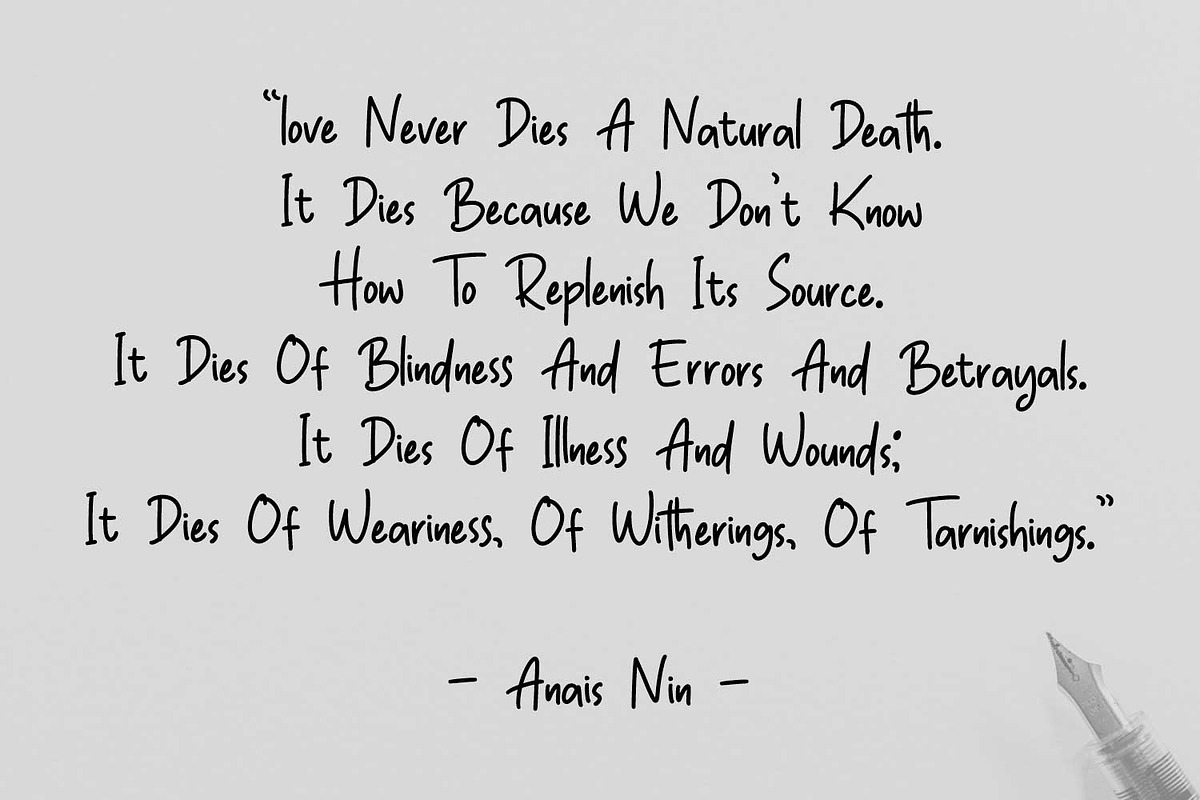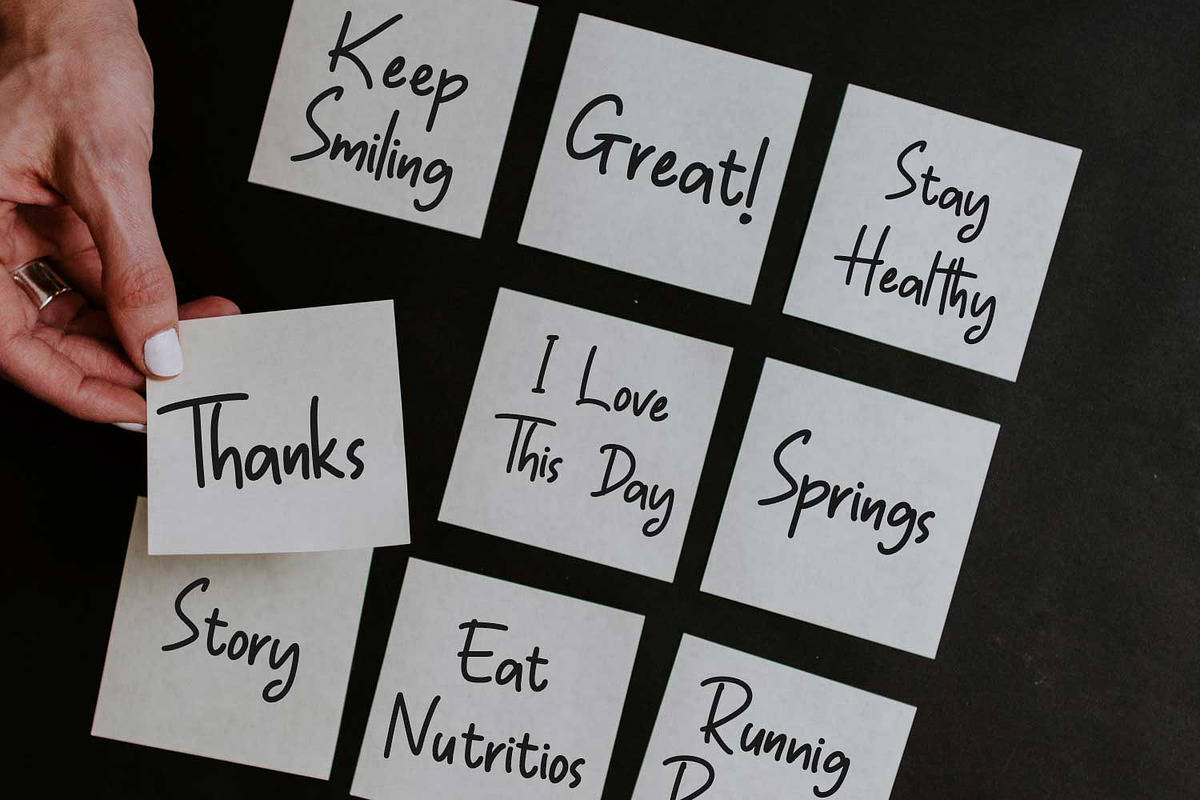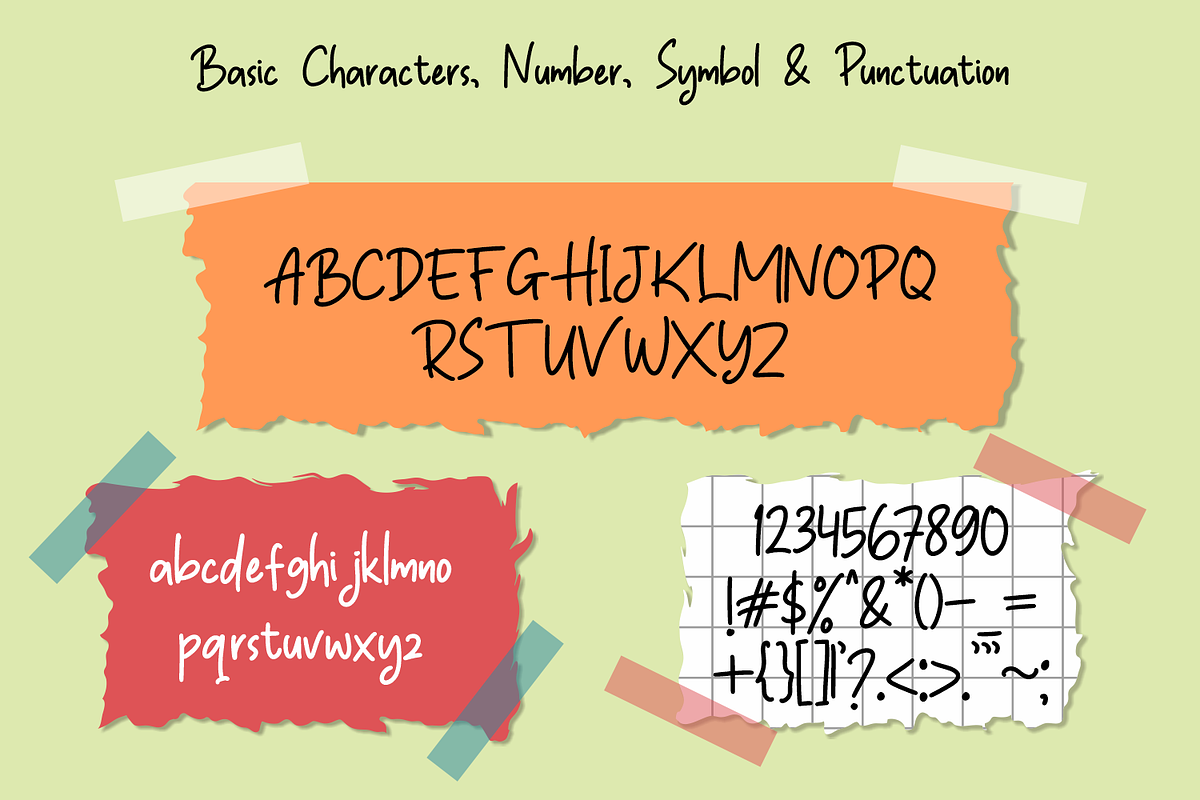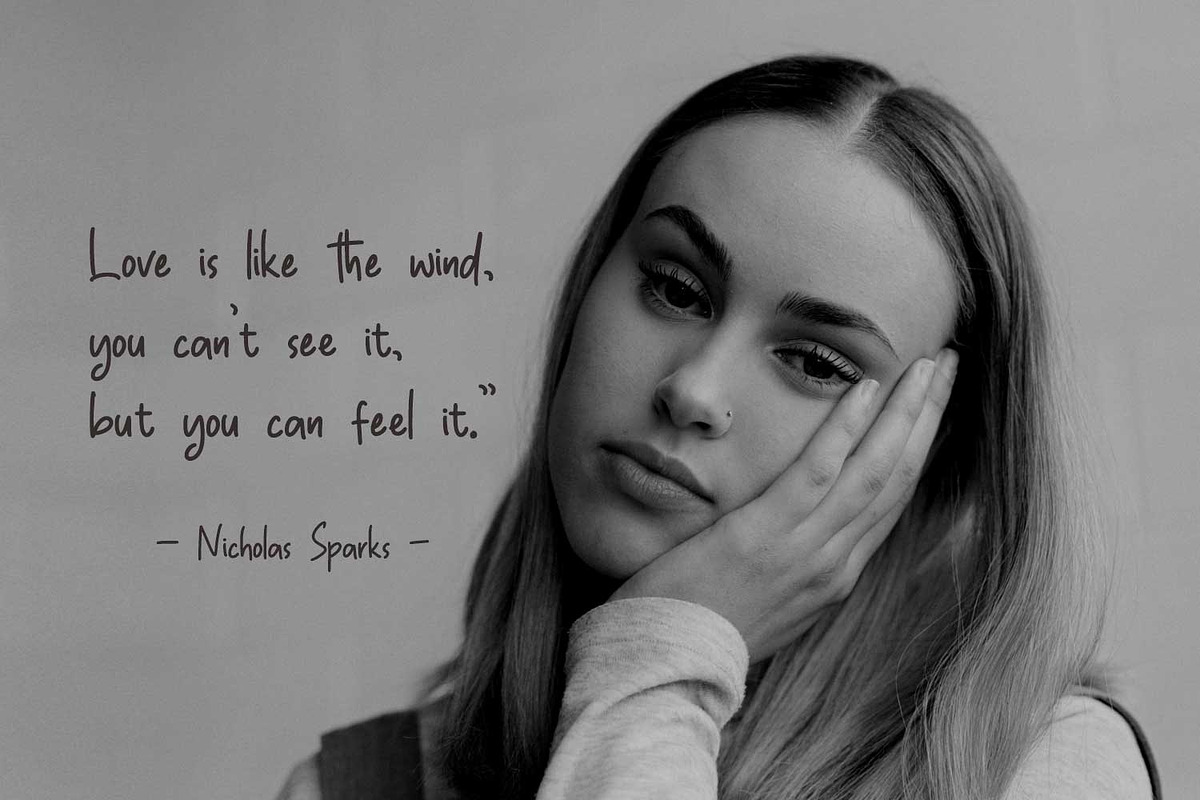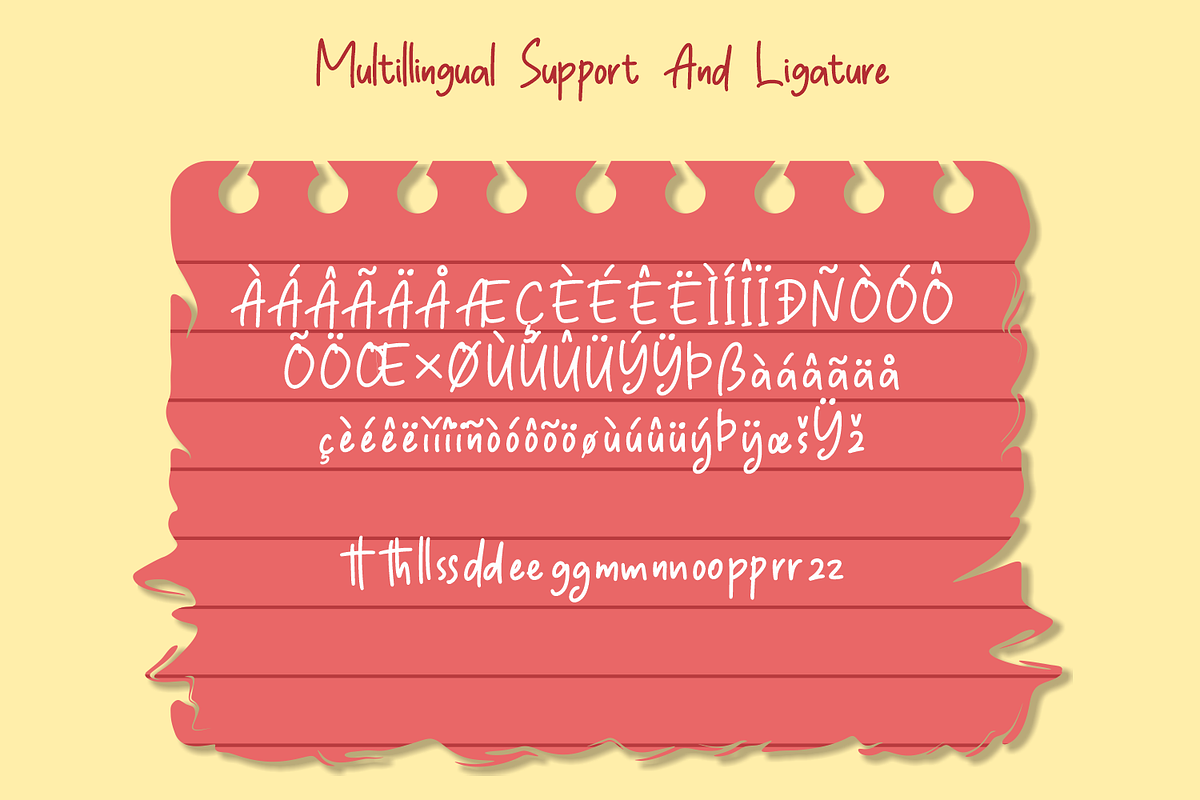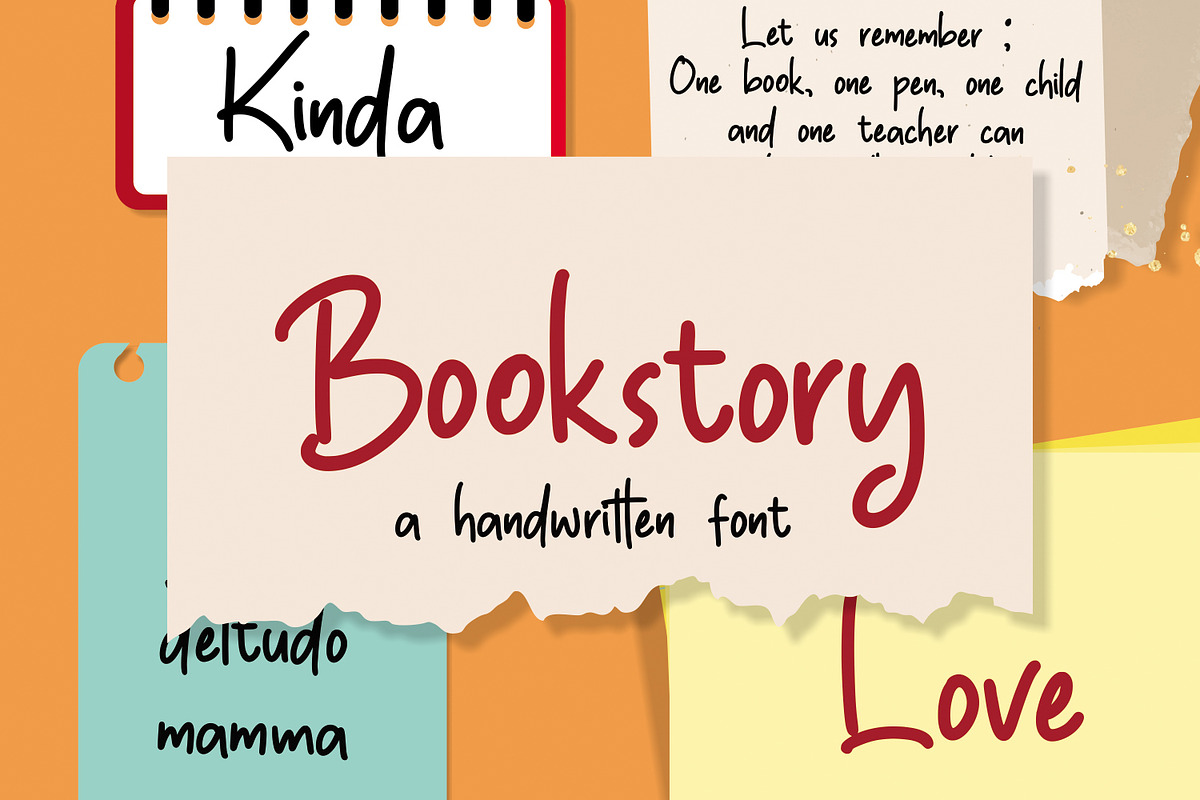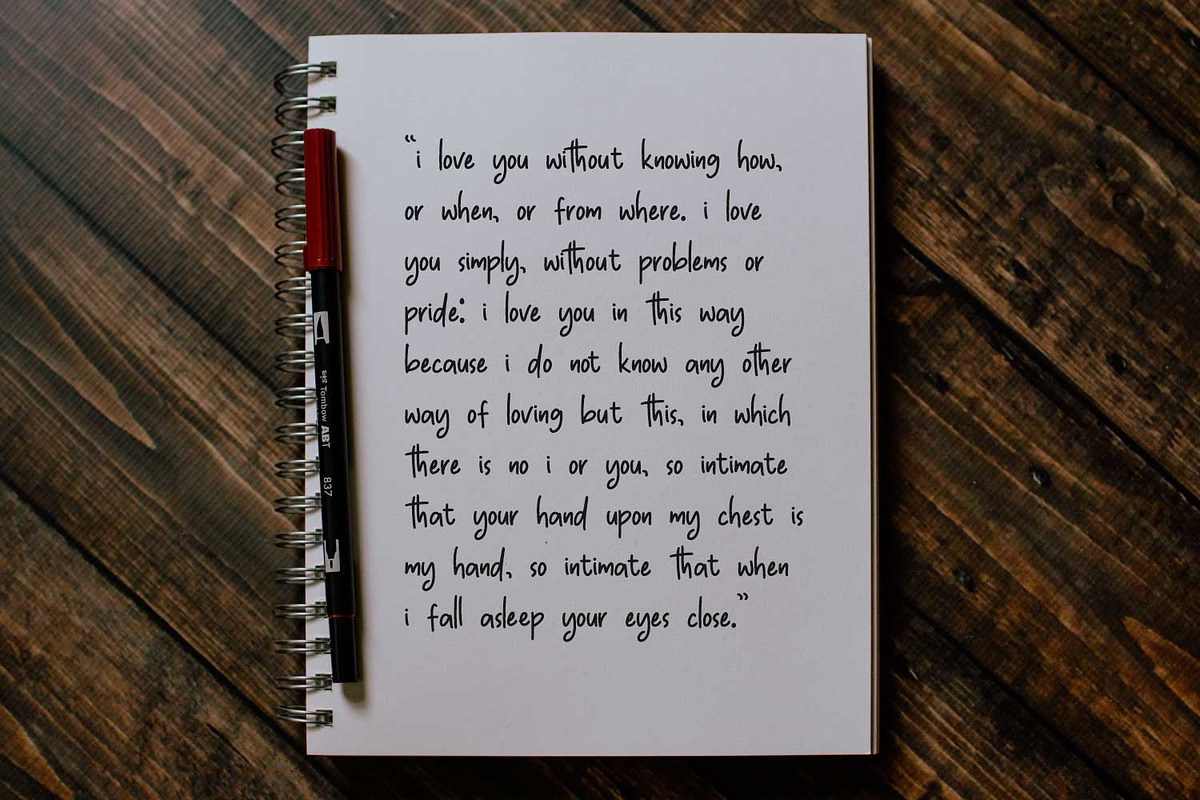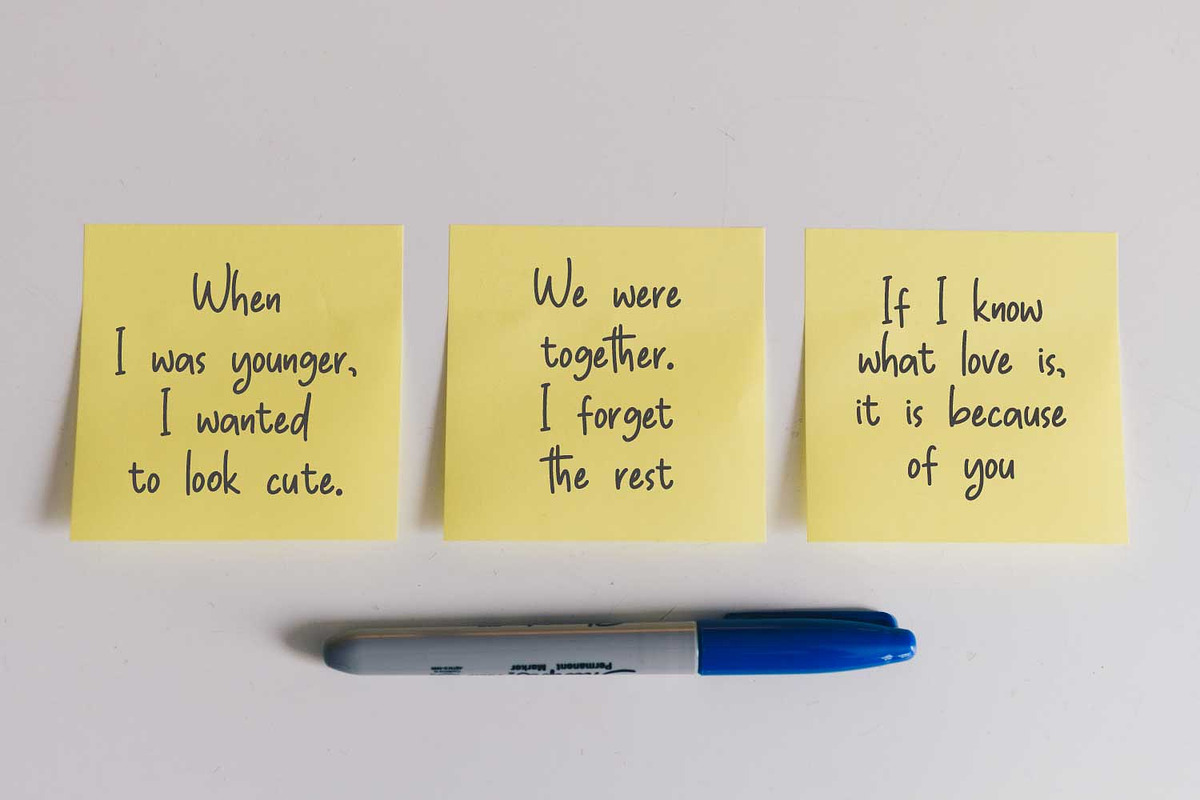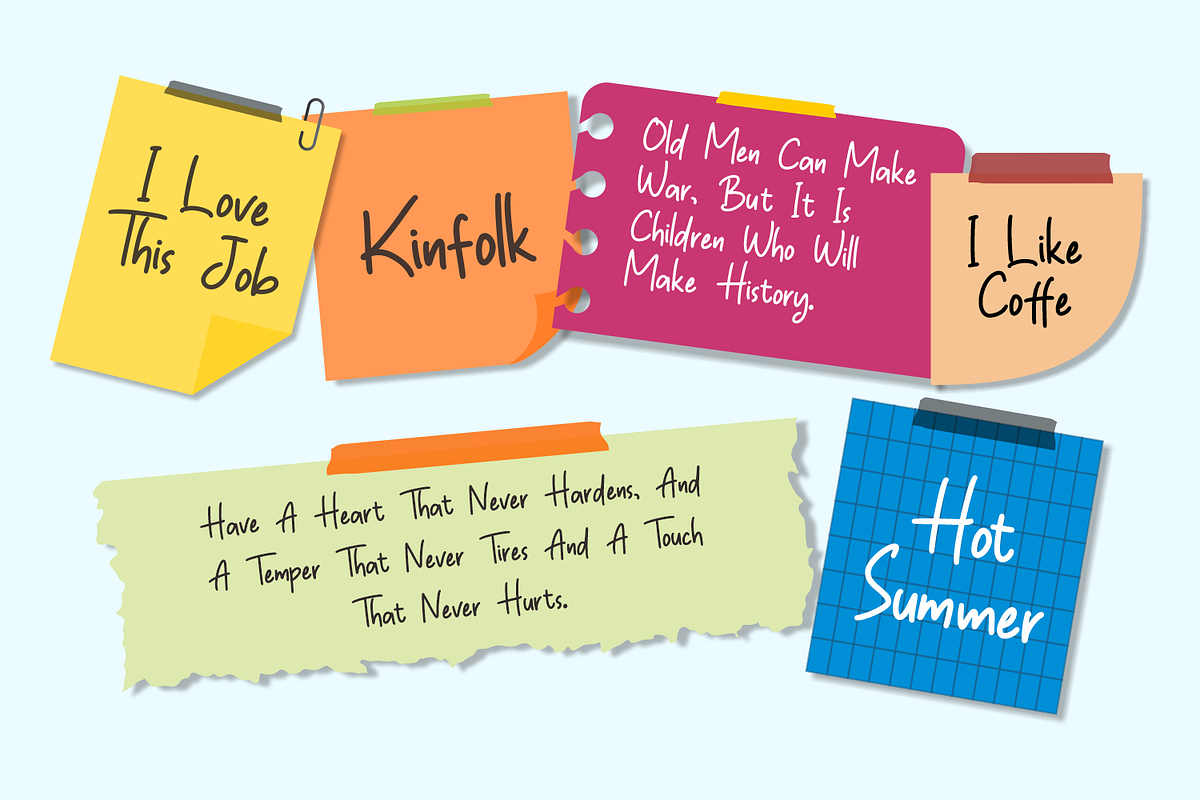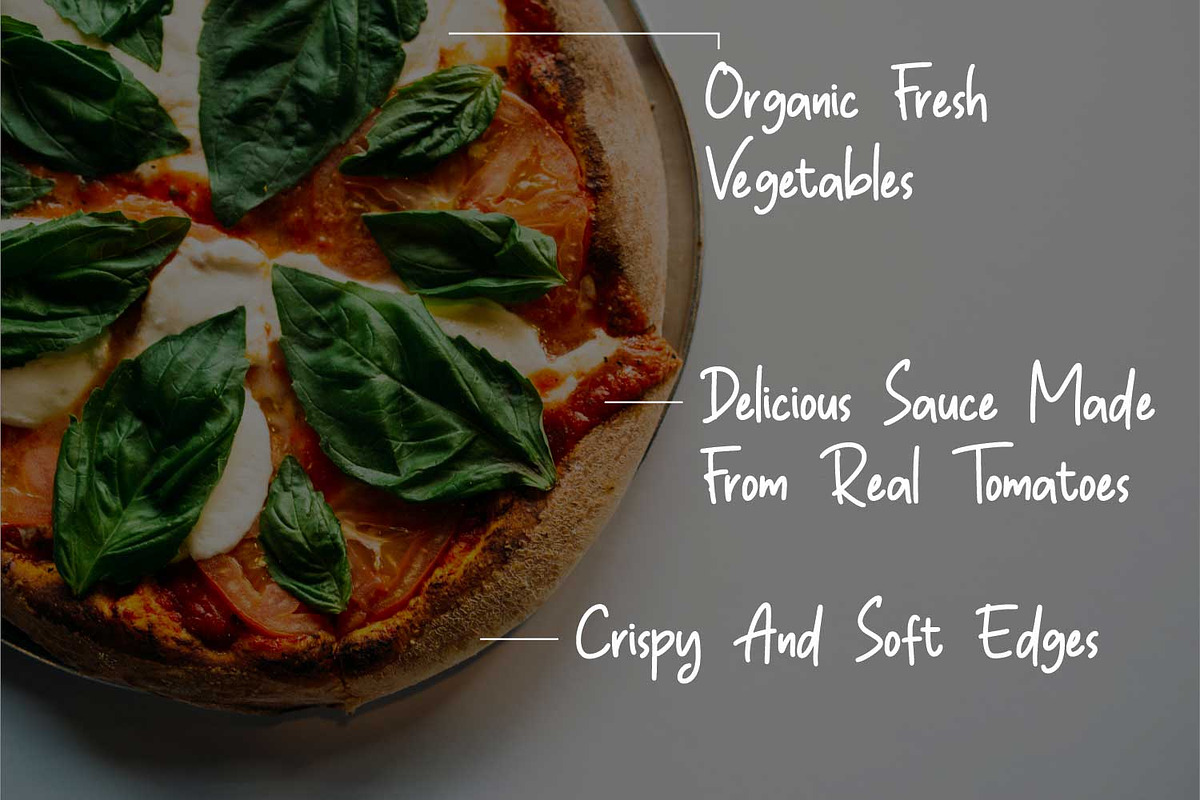
Bookstory
Bookstory is a stylish, cute, friendly and natural handwritten font. It is made from a marker pen. Its casual charm makes it look very down-to-earth, easy to read and, in the end, very versatile. Add this beautiful display font to your every creative idea.
It is PUA encoded which means you can access all of the glyphs and swashes with ease! Fall in love with its incredibly versatile style and use it to create spectacular designs! Use this font for any crafting project that requires a personalized look!